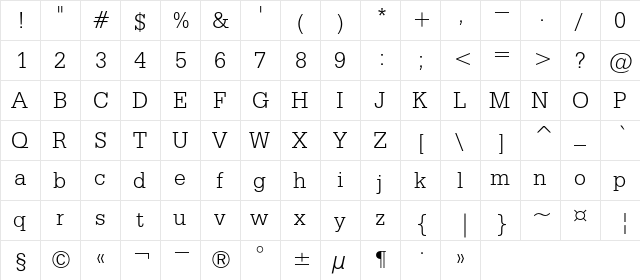
CredisC Regular
Design Context for CredisC Typeface
CredisC offers clean, dependable letterforms without strong stylistic allegiance, making it a practical choice for designers who need flexibility.
Pro Tip: Use CredisC in both headline and body roles to test its range before committing to a single application.